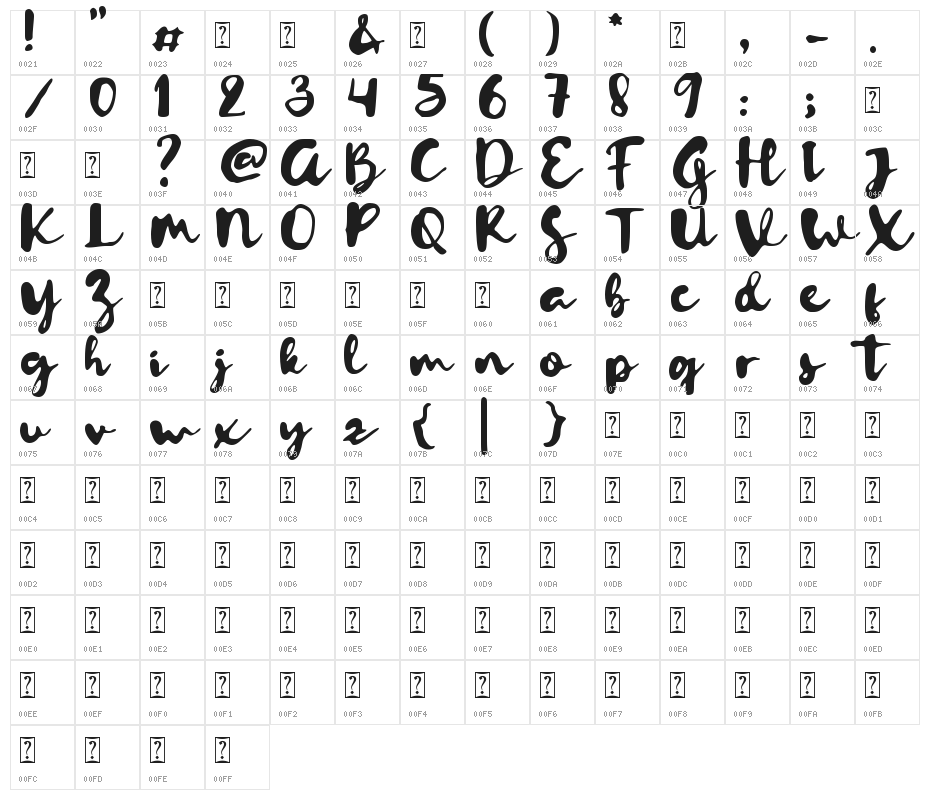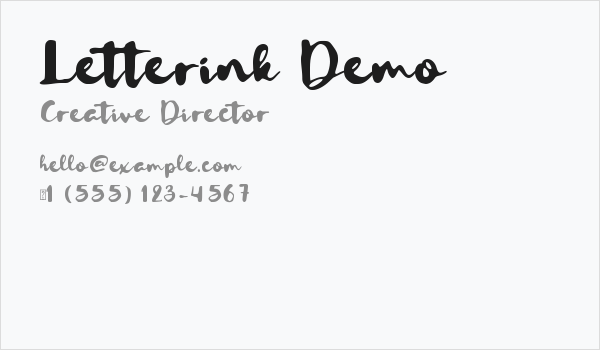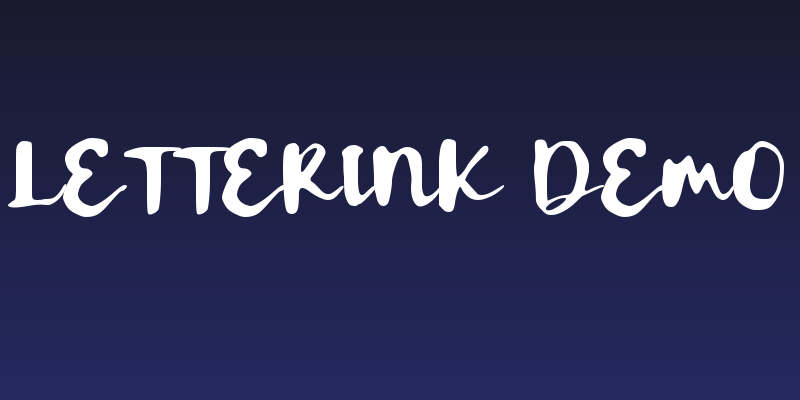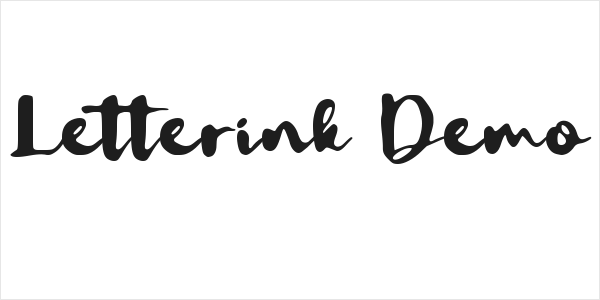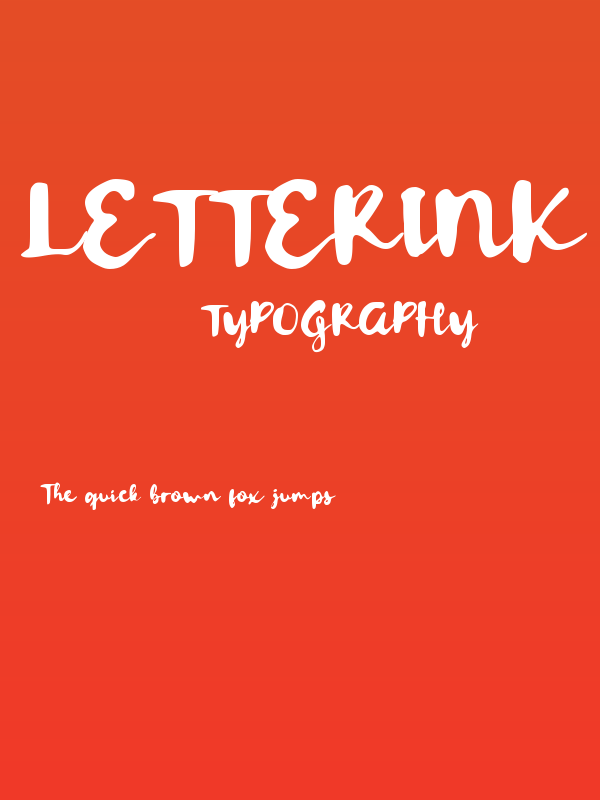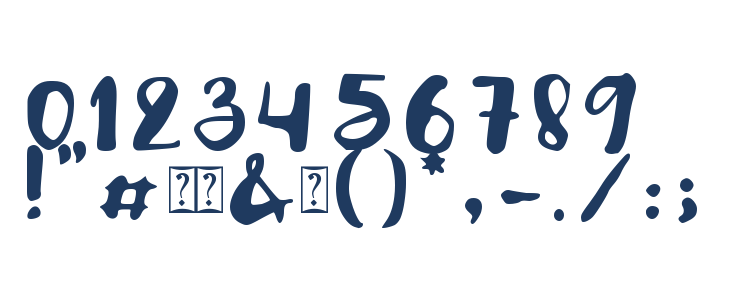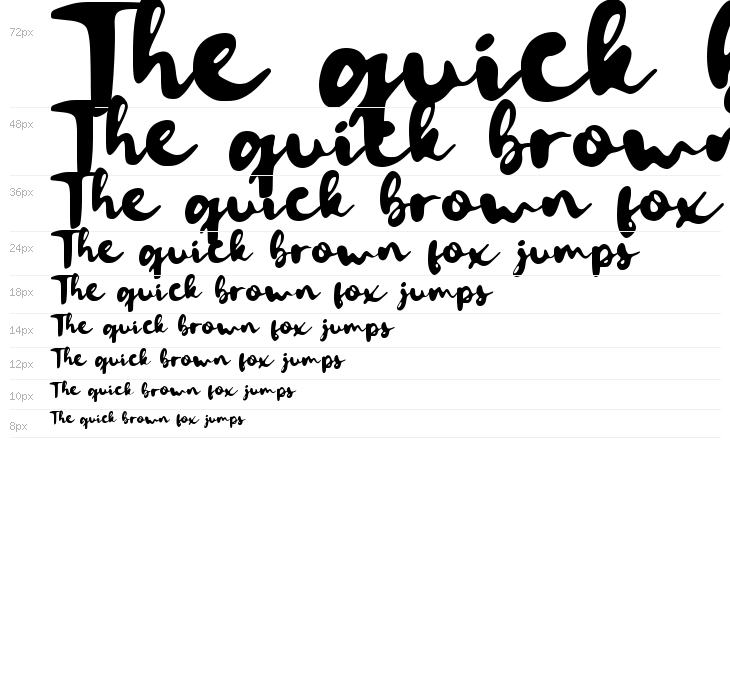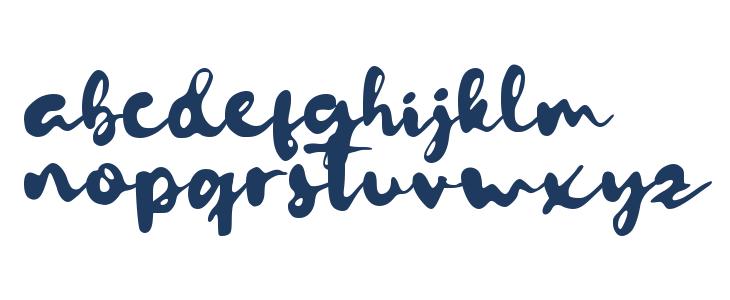
Letterink Demo Font
Letterink Demo Description
This font features a bold and expressive script style, characterized by its flowing, cursive letterforms. The uppercase letters are slightly more structured, while the lowercase letters exhibit a more fluid and dynamic appearance. The strokes are thick and consistent, providing a strong visual impact. The numbers and special characters maintain the same boldness and style, ensuring a cohesive look across all characters. The font's playful yet elegant design makes it suitable for creative and artistic projects.